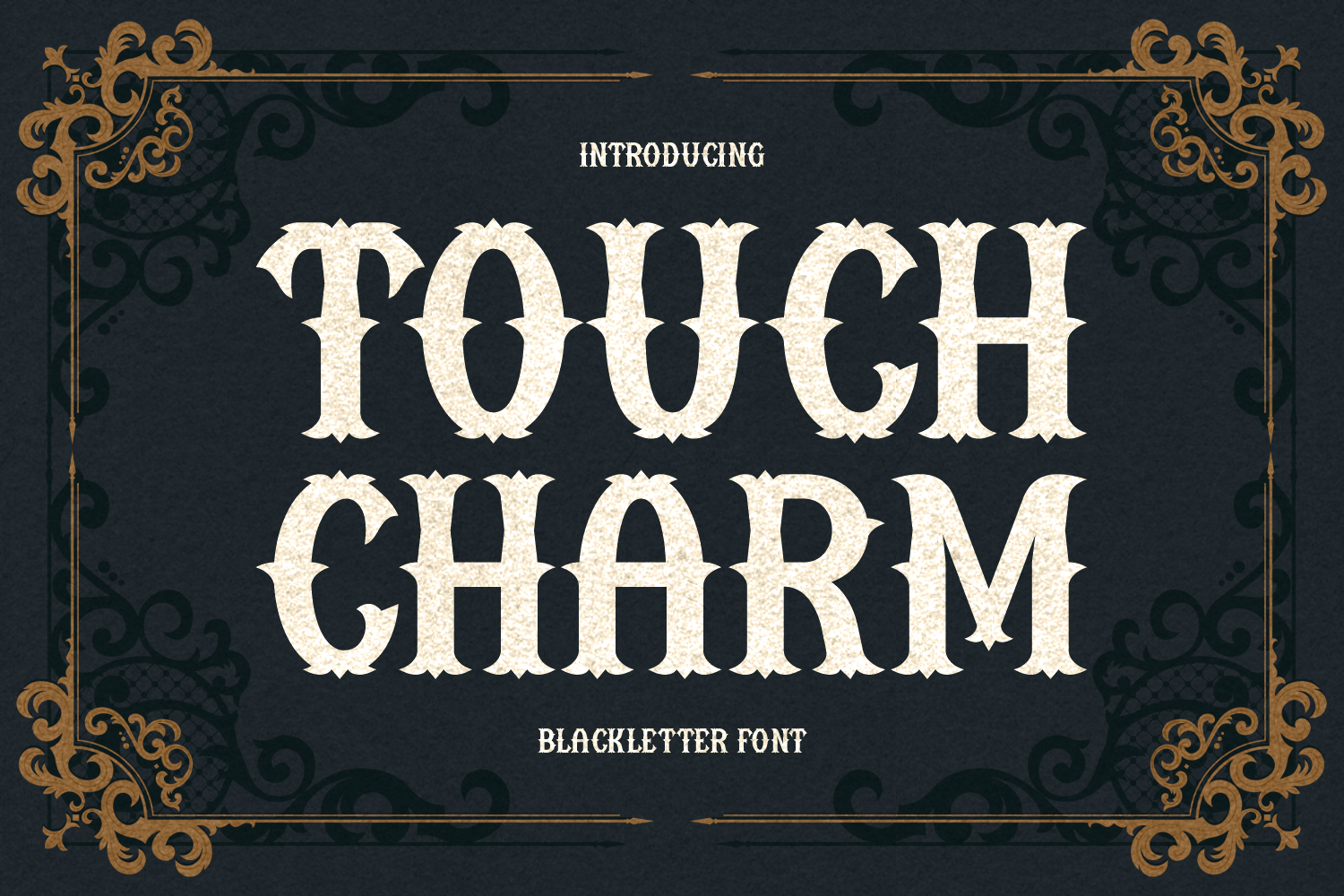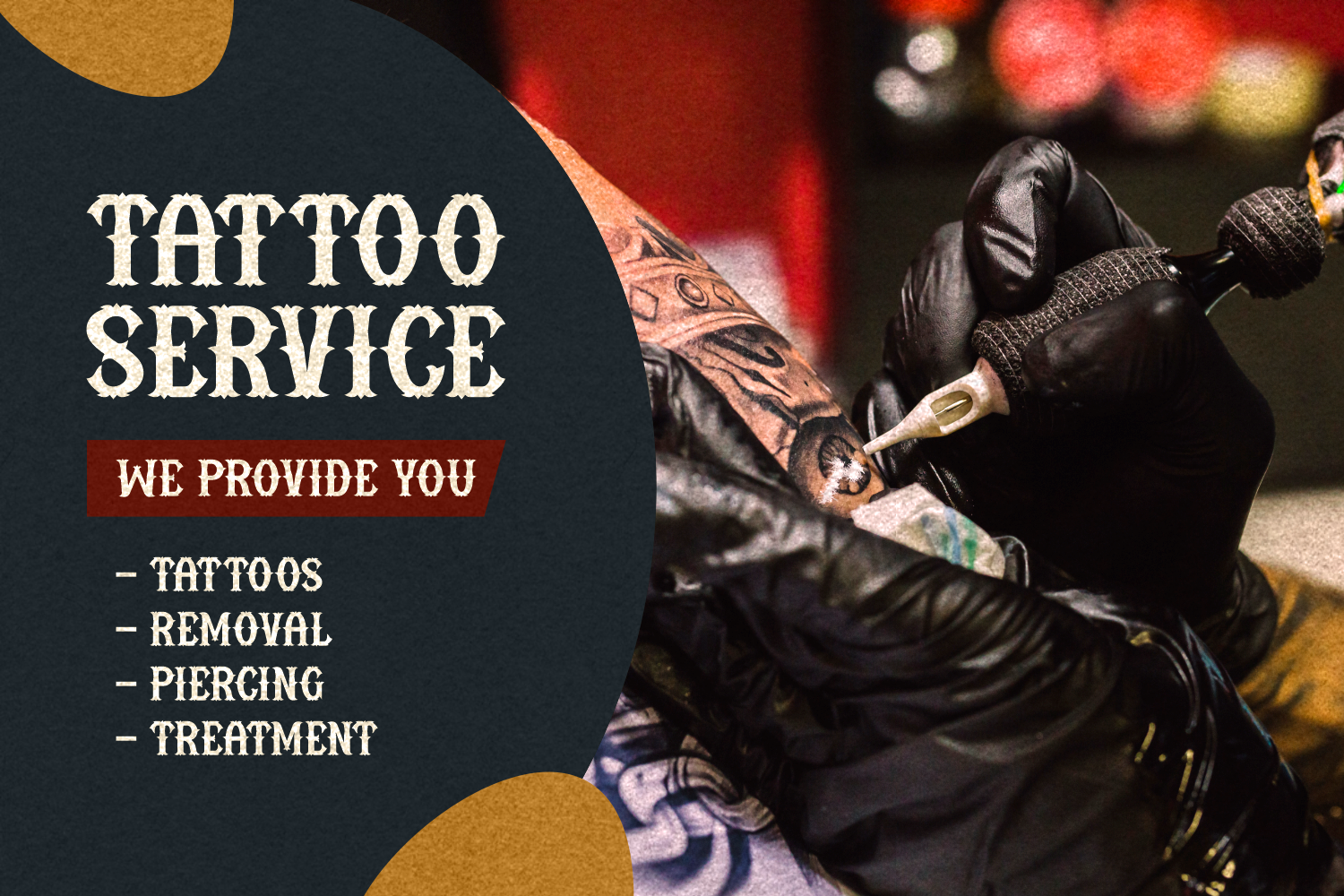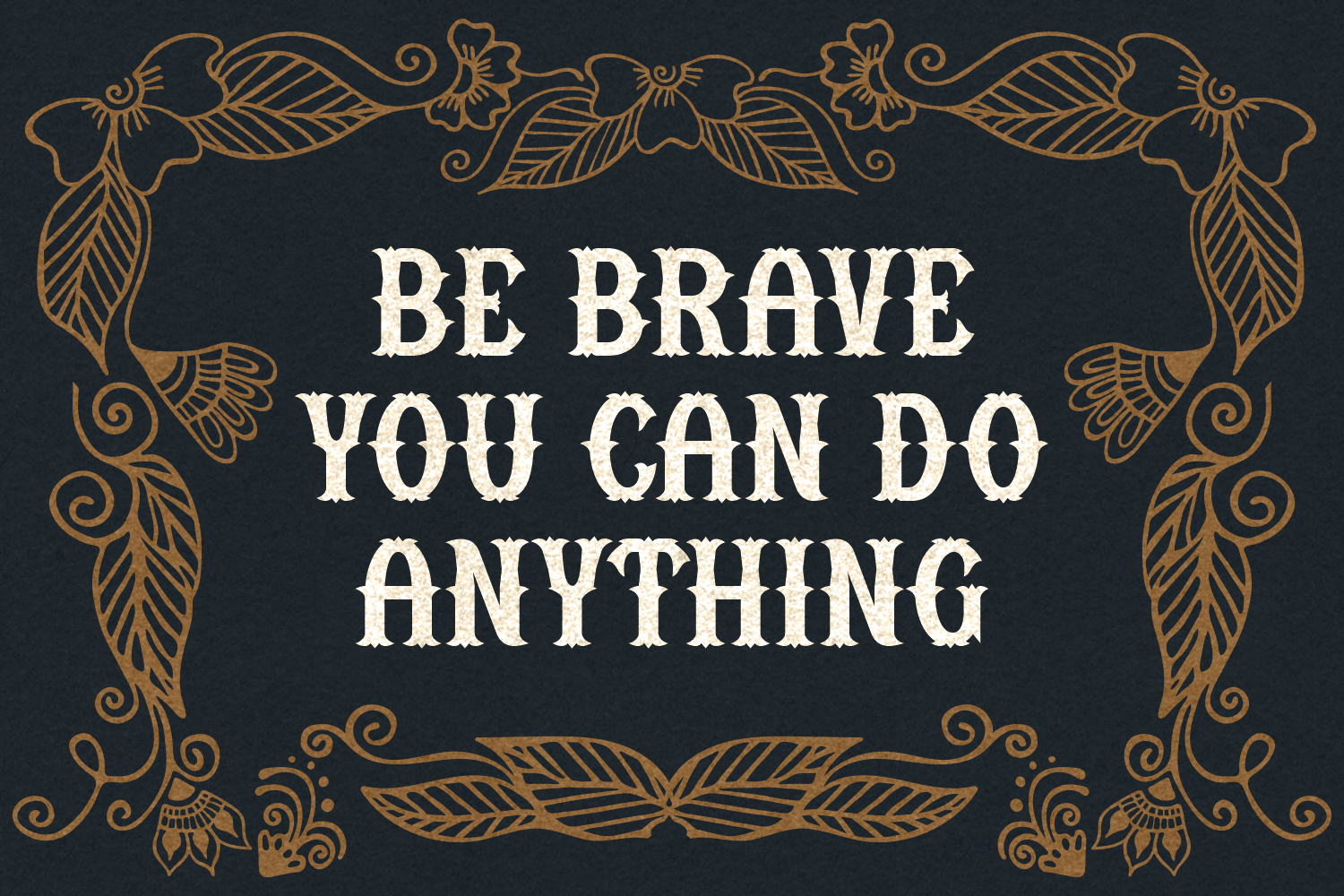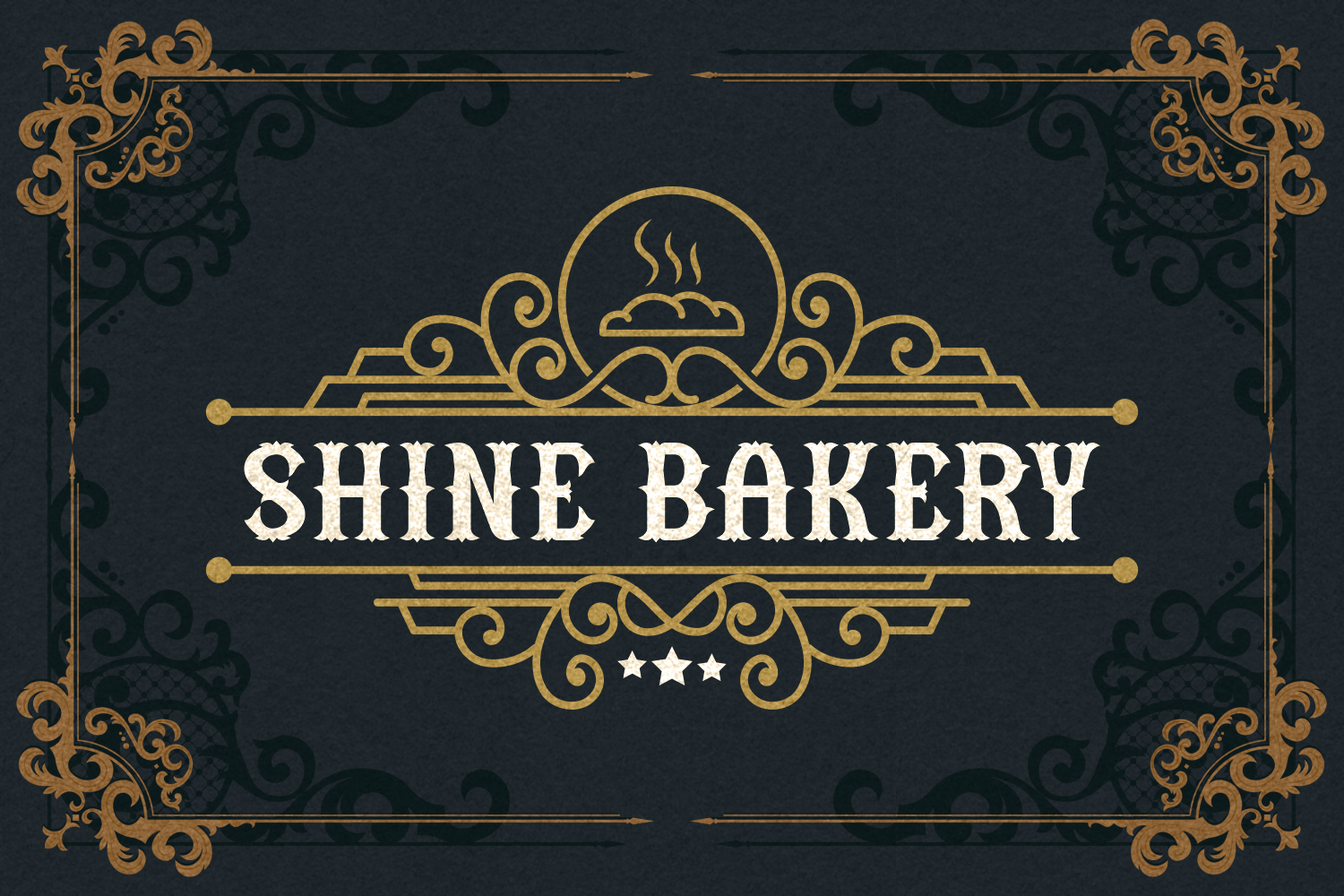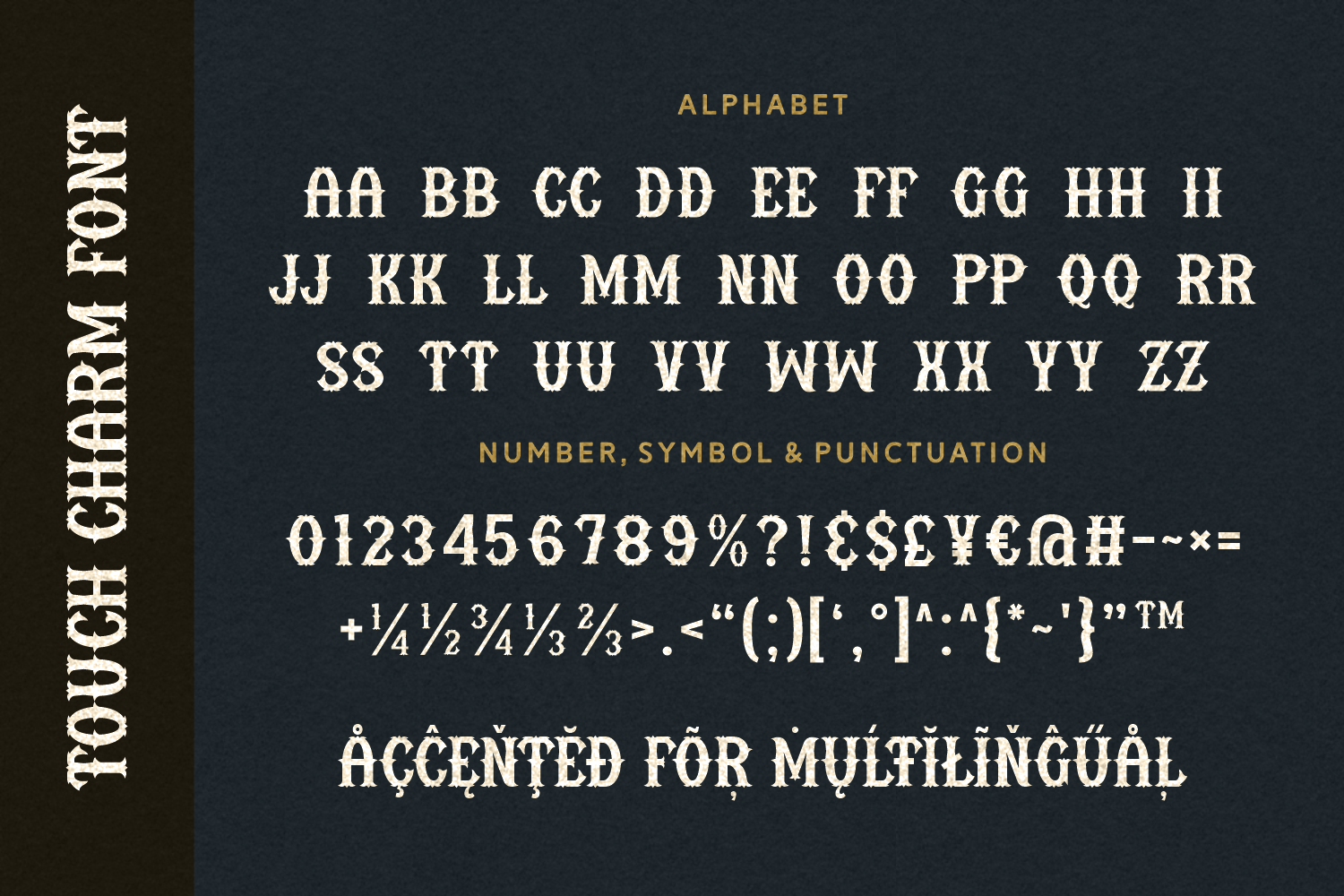
Touch Charm is an ornate blackletter font with elegant curves and vintage detailing. Perfect for wedding invitations, antique branding, and classic decorative projects.